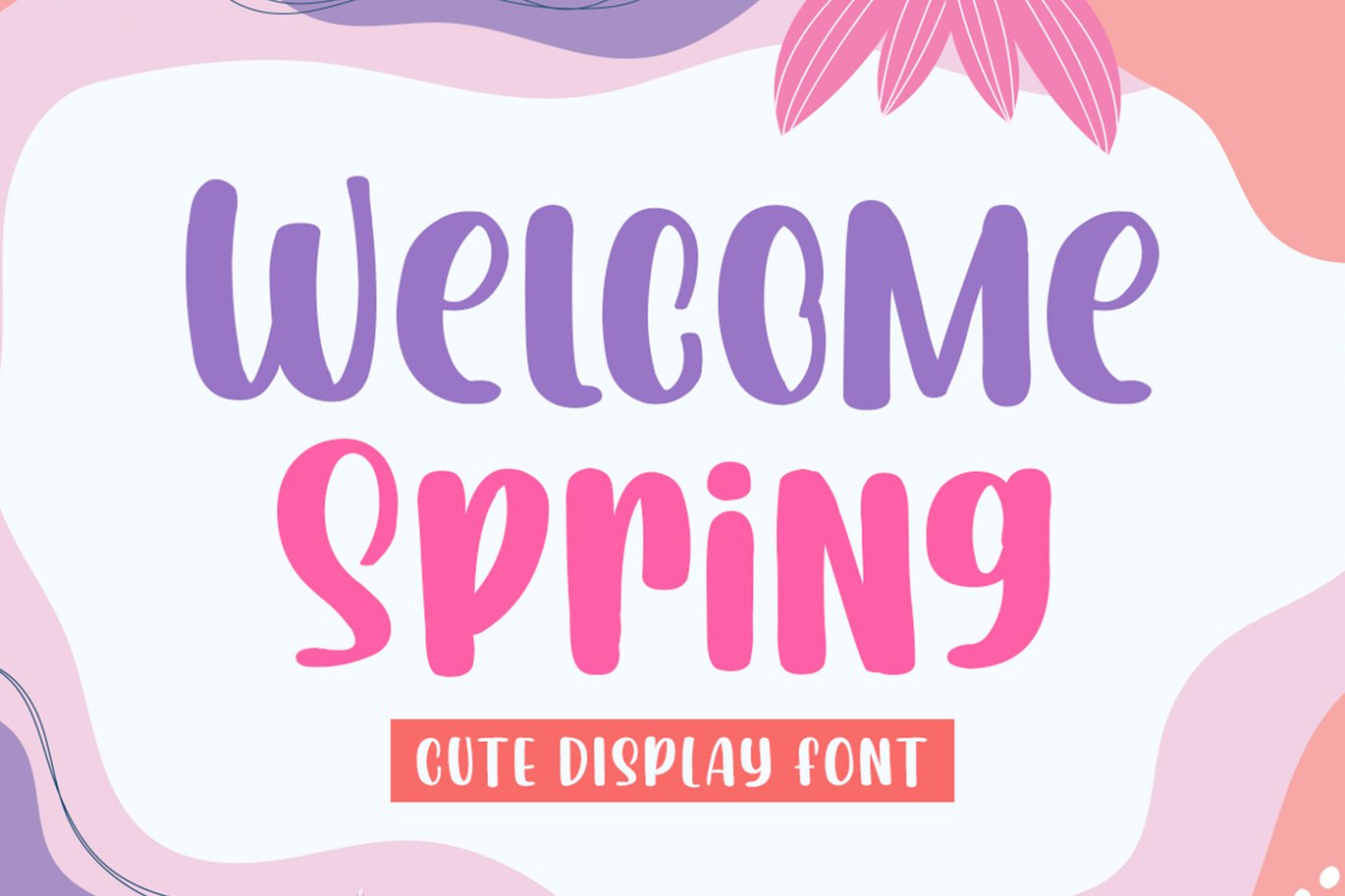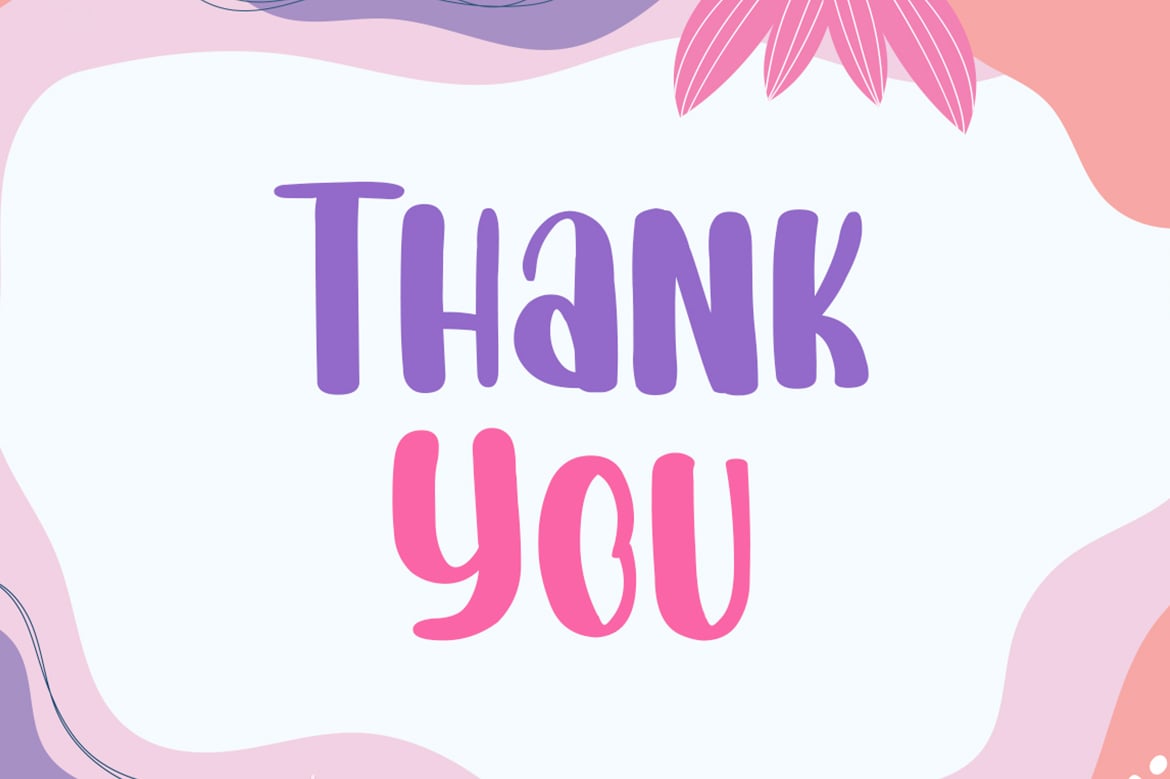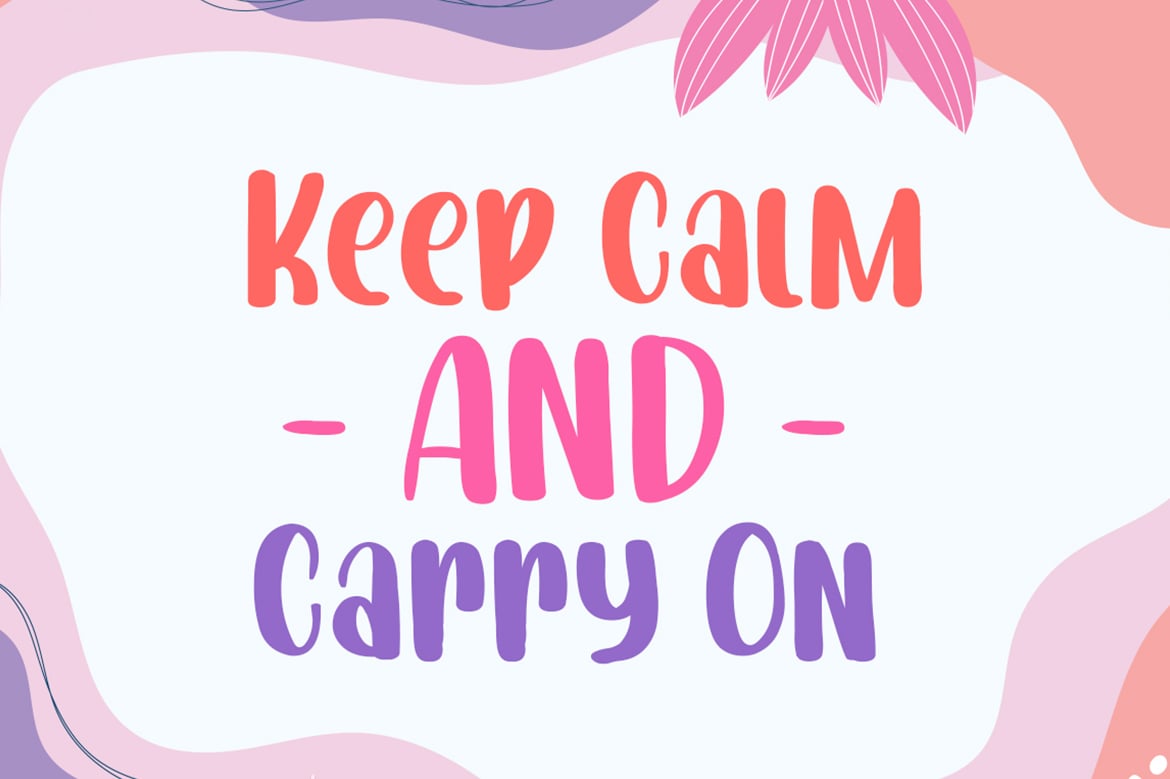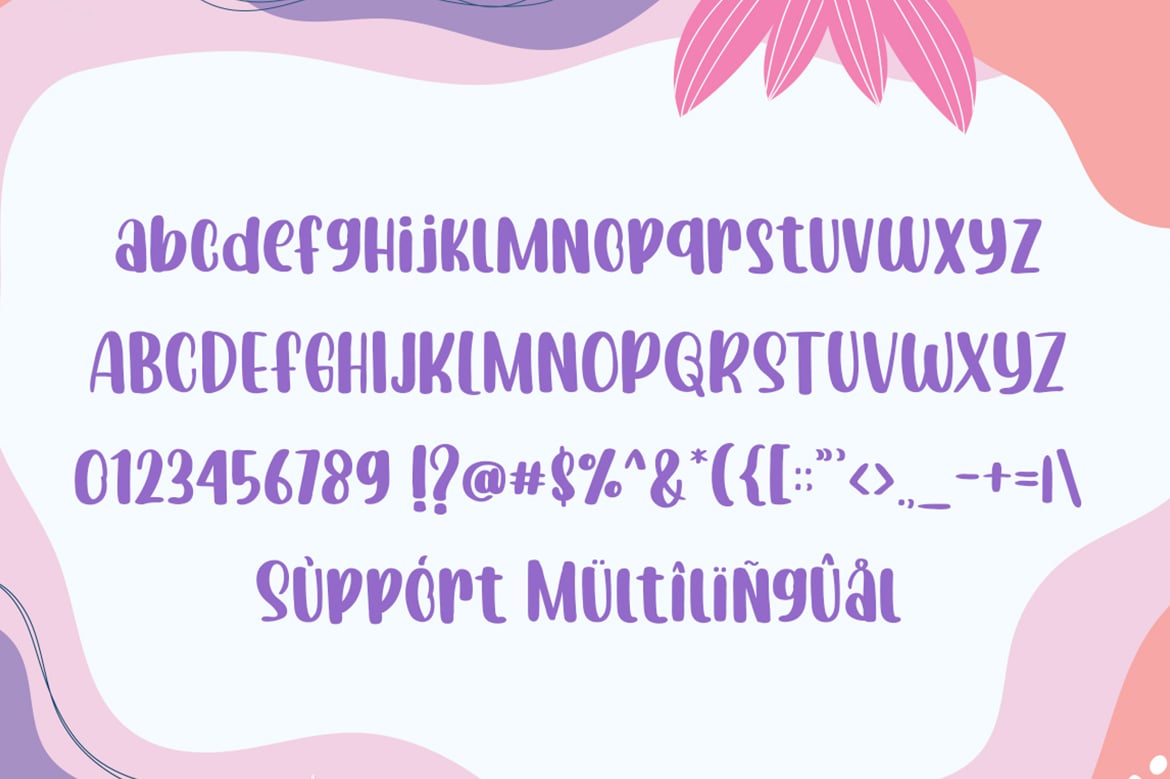
Welcome Spring – Cute Font
Welcome Spring is a cute and colorful display font. It embodies playfulness and authenticity and is the perfect choice for any children activity or school project.
This font is suitable for use on kids, book, logos, magazines, quotes, birthday card, watermarks, invitations.